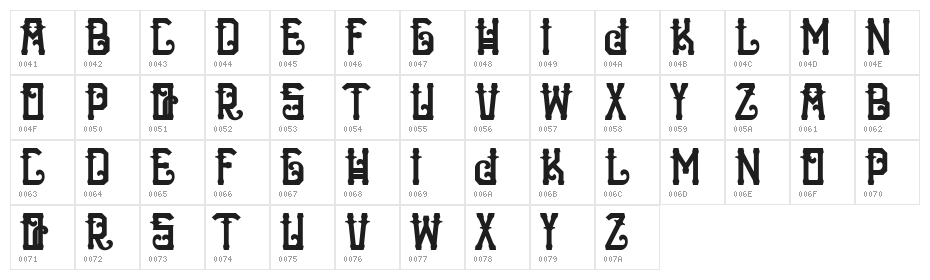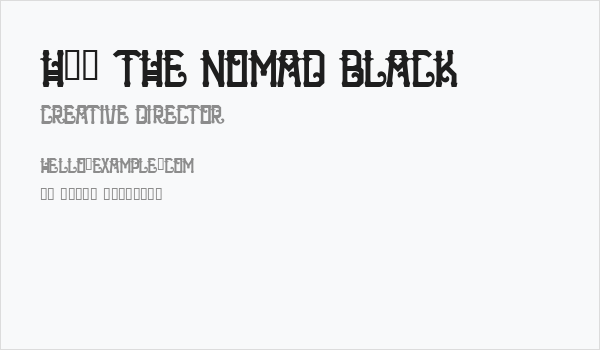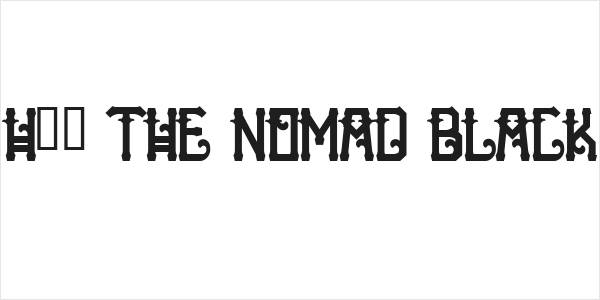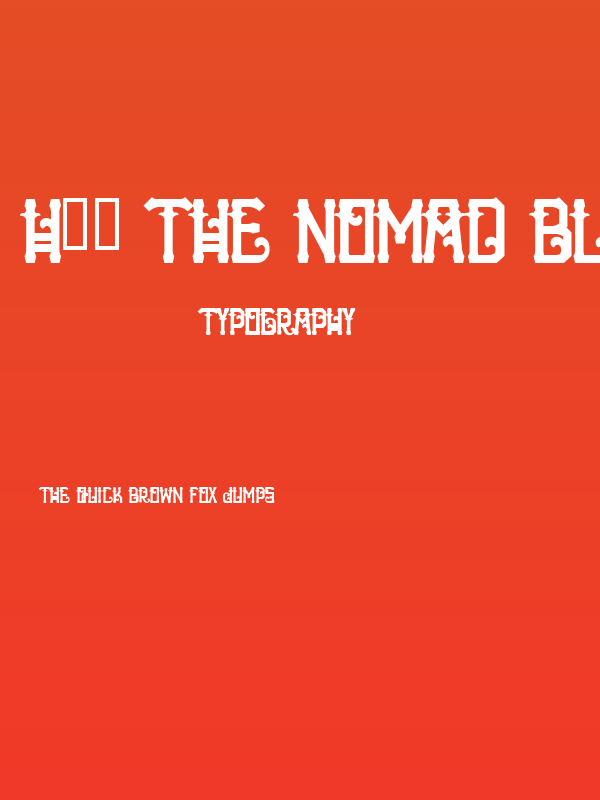
H74 The Nomad Black Font
H74 The Nomad Black Description
This font features a bold and decorative style with intricate details and unique flourishes. The uppercase letters are particularly striking, with elaborate swirls and sharp edges that create a sense of movement and energy. The lowercase letters maintain this ornate style, ensuring consistency throughout the typeface. The overall design is reminiscent of vintage or gothic aesthetics, making it ideal for projects that require a dramatic and eye-catching look. The font's boldness and intricate design elements make it stand out, while the consistent line weight provides a balanced appearance.
| Overall Style | Vintage, Decorative |
| Proposed Projects | Ideal for posters, album covers, branding, and any project needing a dramatic, vintage look. |